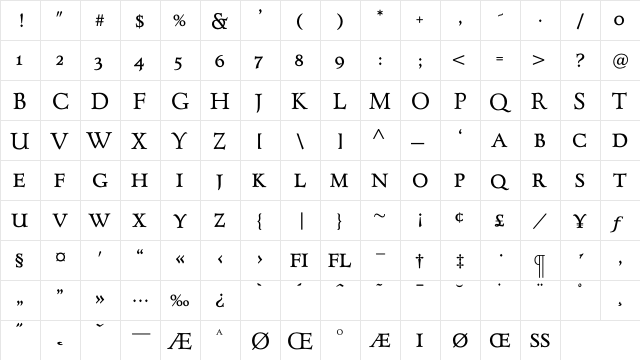
ForumTitlingBoldOldStyleFigs Regular
Design Context for ForumTitlingBoldOldStyleFigs Typeface
ForumTitlingBoldOldStyleFigs carries the refined structure of traditional serif typography, with bracketed terminals and considered proportions that communicate credibility and craft. The heavy weight commands attention and anchors typographic hierarchies.
Pro Tip: Set ForumTitlingBoldOldStyleFigs with slightly loose tracking in headlines to let each letterform's detail read clearly at display sizes.